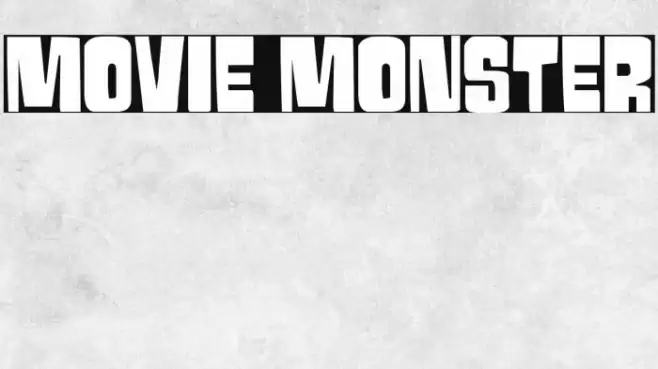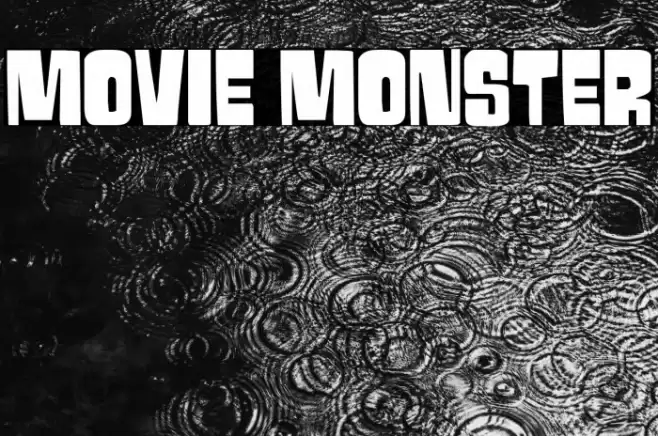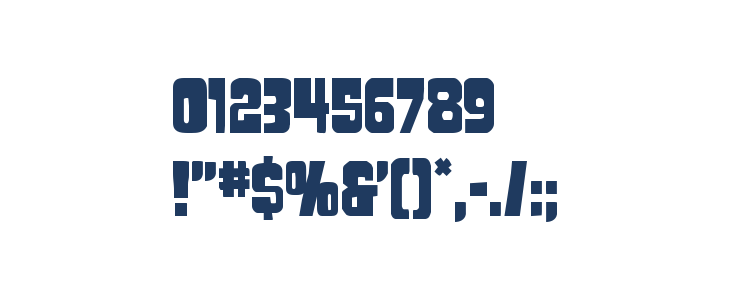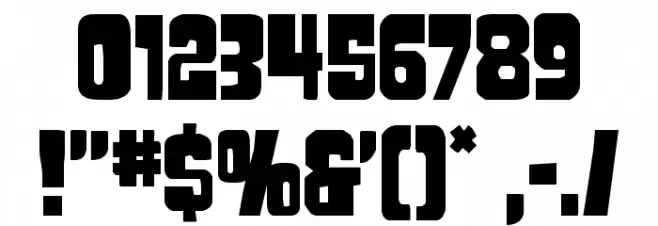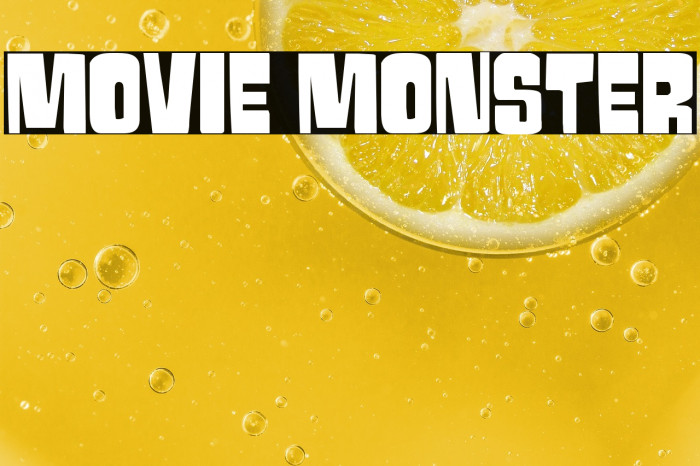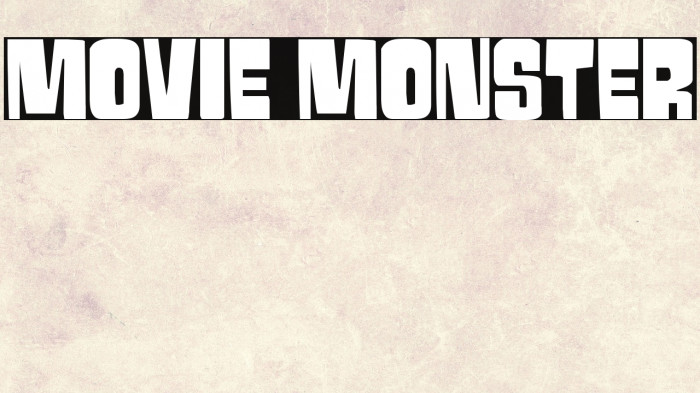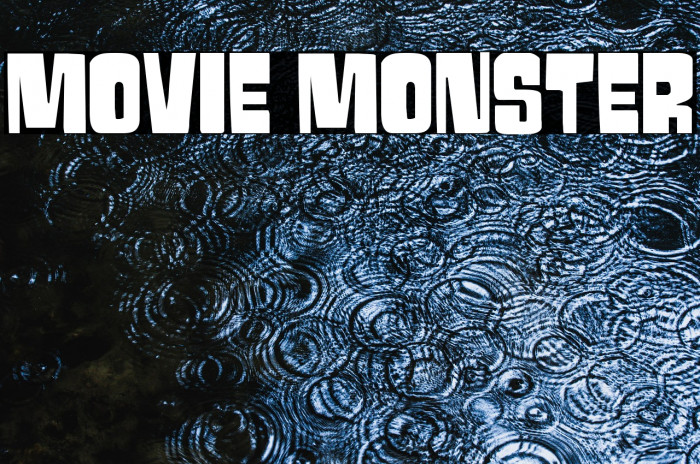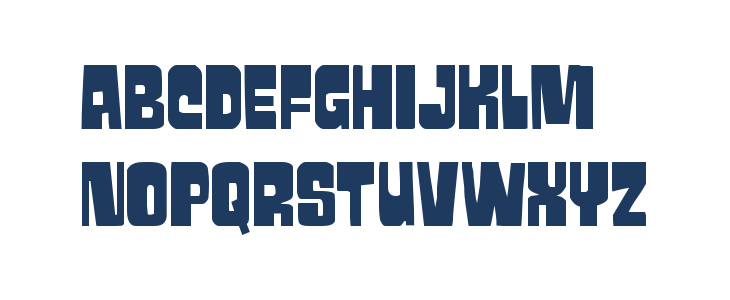
Movie Monster Font
Movie Monster Description
This bold and striking font features a heavy, block-like design with sharp angles and a slightly condensed width. The characters are uniformly thick, creating a strong visual impact. The uppercase letters are particularly dominant, with a geometric style that suggests a sense of power and authority. The numbers and special characters maintain this bold aesthetic, ensuring consistency across all glyphs. The font's design is reminiscent of classic movie posters or comic book titles, where attention-grabbing text is essential.
A bold, block-like font with a strong, geometric style from Regular fonts.
- Font: Movie Monster
- Proposed Projects: Ideal for movie posters, comic book titles, video game graphics, and any project requiring a dramatic, eye-catching typeface.